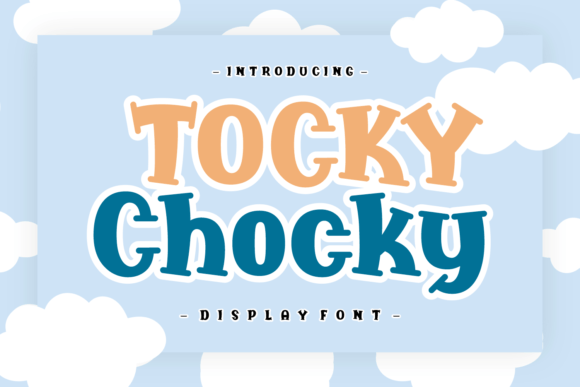
Discover Tocky Chocky, the adorable display font that will make your designs dance with delight! Its charmingly quirky curves and playful spirit bring a touch of irresistible whimsy to every project.
Crafted by the talented Feri (7NTypes), Tocky Chocky's bold shapes and vibrant hues emanate pure joy and creativity. Its unique design is guaranteed to captivate hearts, making it the perfect choice for branding, packaging, and any endeavor seeking a splash of whimsy.
Indulge in the sweet embrace of Tocky Chocky, where imagination takes flight and your creations blossom with a touch of enchanting magic.